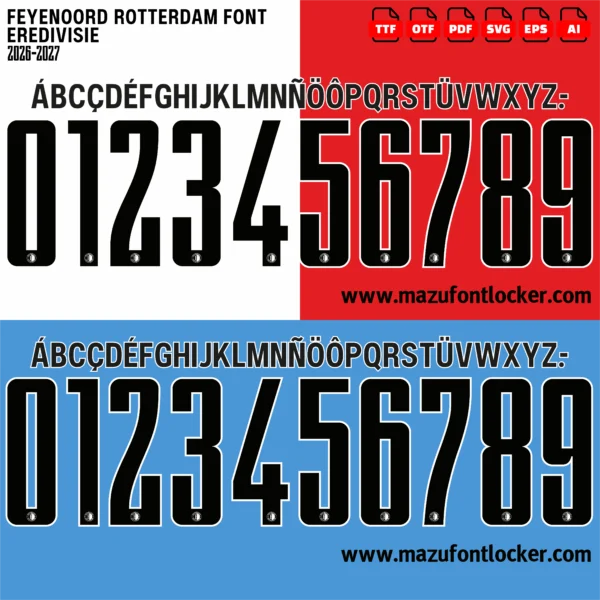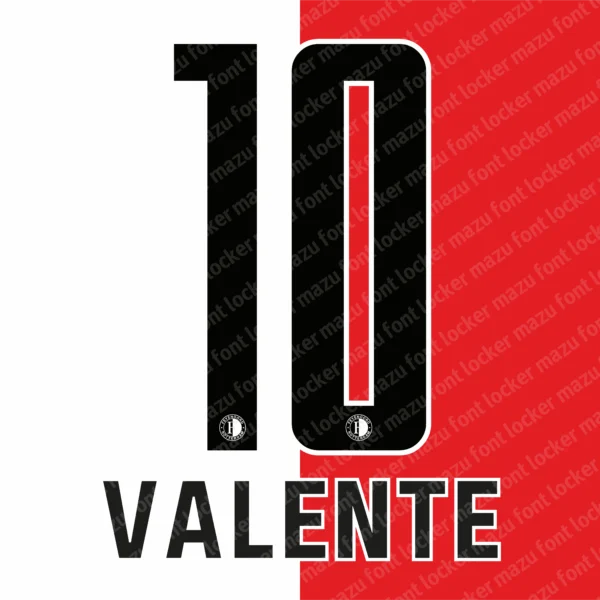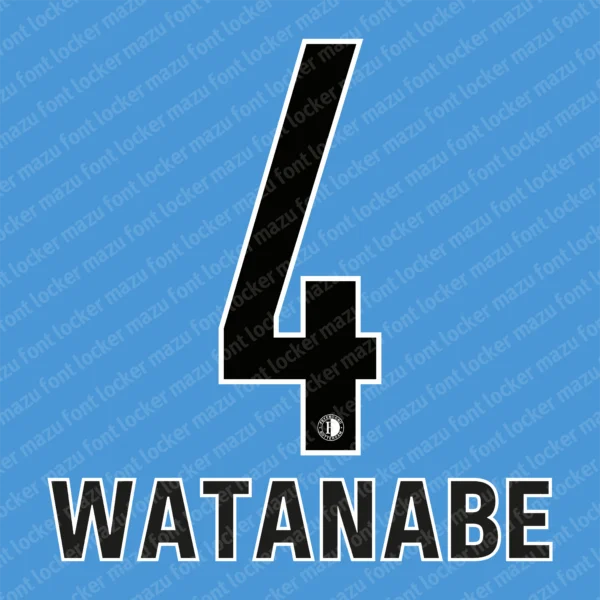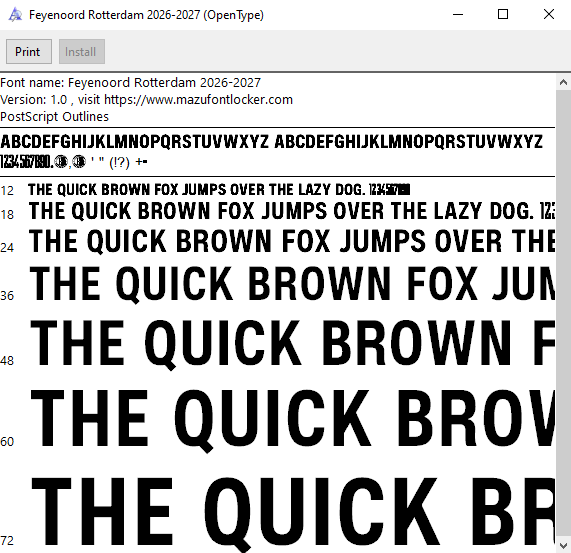
Feyenoord Rotterdam 2026-2027 Font Vector – Stunning Trots van Zuid Masterpiece
This font captures the commanding, crimson-edged, lightning-strike, and precision-engineered lettering that perfectly embodies Feyenoord’s iconic club identity, proud Rotterdam heritage, legendary red-and-white tradition, working-class warrior spirit, and unstoppable Dutch football power — delivering unmatched authenticity, premium quality, explosive energy, and elite Eredivisie & European competition intensity for professional jersey mockups, dynamic football graphics, premium sports branding, passionate fan creations, and high-end design projects.
Feyenoord Rotterdam 2026-2027 Font Vector – Stunning Red & White Typeface
The Feyenoord Rotterdam 2026-2027 Font Vector is a premium typeface that accurately recreates the distinctive match lettering associated with Feyenoord Rotterdam during the 2026-2027 football season. This high-quality vector font kit captures the bold, clean, and instantly recognizable typography that perfectly complements the club’s iconic red and white identity.
This font stands out thanks to its precise vector construction and authentic club-inspired styling. Every letter and numeral has been meticulously recreated to match the distinctive football lettering aesthetic associated with Feyenoord during the 2026-2027 season and its Eredivisie and European campaigns.
The lettering featured in the Feyenoord Rotterdam 2026-2027 Font Vector combines clean geometric lines with bold modern proportions. The result is a premium and highly readable typeface that reflects Feyenoord’s proud football heritage, iconic red and white colours, Rotterdam identity, and the passionate support of Het Legioen.
- Complete uppercase A–Z alphabet and numbers 0–9 in authentic Feyenoord Rotterdam 2026-2027 inspired style
- Special Feyenoord badge glyph – Press the “:” (Colon) key to insert the club badge
Wearing their iconic red and white colours, Feyenoord continue to represent a proud football tradition built on passion, community spirit, and a strong connection with supporters known as Het Legioen at Stadion Feijenoord (De Kuip) and around the world. The Feyenoord Rotterdam 2026-2027 Font Vector is inspired by the distinctive football typography and visual identity associated with this campaign, making it an excellent choice for designers creating custom jersey concepts, football posters, squad graphics, matchday artwork, and fan-made projects. For official club information, news, team updates, fixtures, and match information, visit the official Feyenoord website.
The Feyenoord Rotterdam 2026-2027 Font Vector is an independently designed typeface package inspired by the official shirt lettering and visual identity associated with Feyenoord Rotterdam during the 2026-2027 football season. It has been carefully recreated for football enthusiasts, graphic designers, collectors, jersey creators, and fans producing custom football concepts, digital artwork, and fan-made projects. Please note that this is a fan-made design resource and is not an official product of Feyenoord, the Eredivisie, UEFA, or any associated organization.